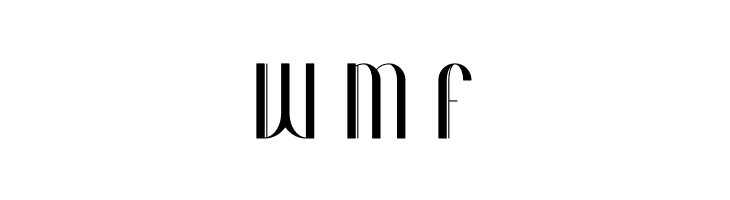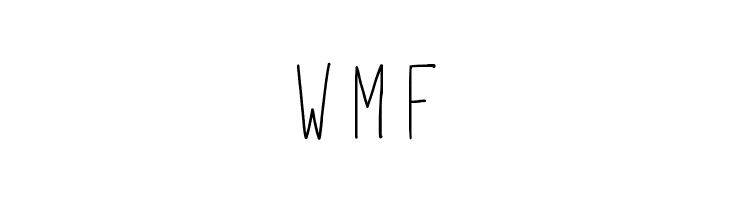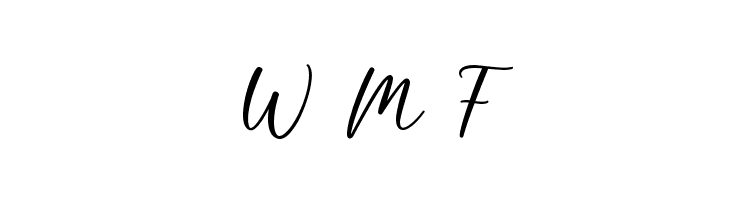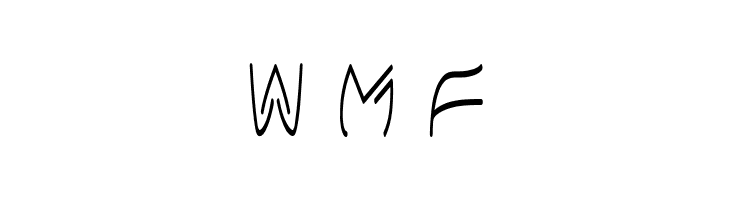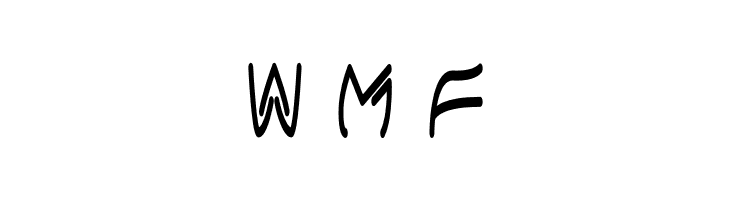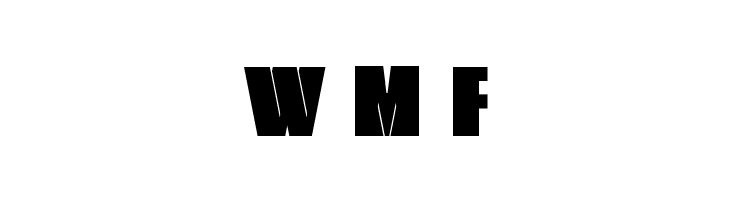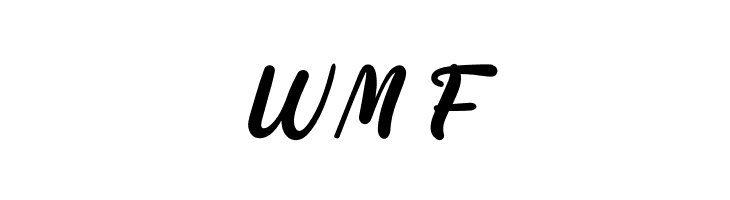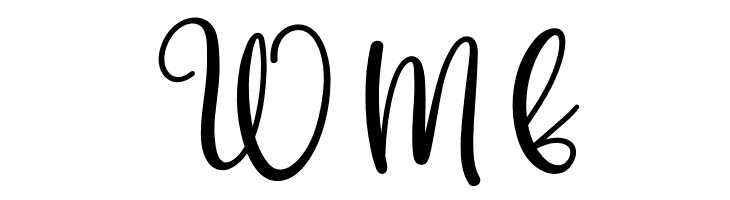
A sophisticated script font with elegant, flowing cursive letterforms.
A bold, expressive script font with flowing, cursive letterforms.
An elegant, fluid script font with sweeping cursive strokes.
A whimsical and flowing script font with elegant curves and playful swashes.
A tall, narrow font with a geometric and modern style.
Elegant decorative script font.
A bold, geometric font with sharp angles and thick strokes, ideal for modern designs.
A bold, angular font with a modern, geometric style.
A bold, geometric font with sharp angles and playful shapes.
An ornate, decorative font with vine-like embellishments.
A playful, elegant handwritten font with smooth, flowing lines and a casual sophistication.
A bold, jagged font with a rough, dynamic texture.
A bold, playful font with rounded, whimsical characters.
Elegant cursive script with a handwritten style.
Expressive handwritten script font.
A playful, bold font with rounded edges and a hand-drawn feel.
A lively and expressive script font with fluid, continuous strokes.
A bold, flame-themed font ideal for dramatic and thematic designs.
A playful, casual handwritten font with fluid strokes.
A bold, playful font with rounded, irregular shapes.
A playful, rounded font with a handwritten feel and consistent stroke thickness.
A bold, geometric, and modern uppercase font with high contrast.
A bold, distressed font with a textured, stamp-like appearance.
An elegant script font with flowing lines and decorative swashes.
A playful, bold font with rounded, slightly irregular letterforms.
A bold, outlined font with a modern geometric design.
A graceful and flowing script font with elegant, connected strokes.
A playful, elegant handwritten font with fluid, interconnected strokes.
A modern, elegant font with decorative swirls and thin, elongated strokes.
A playful, casual handwritten script with thin, flowing lines.
A playful, hand-drawn font with rounded, bold characters and a casual style.
A playful, bold font with rounded, bubbly characters.
A lively, cursive font with a handwritten, elegant style.
A playful, bold handwritten font with a dynamic and friendly style.